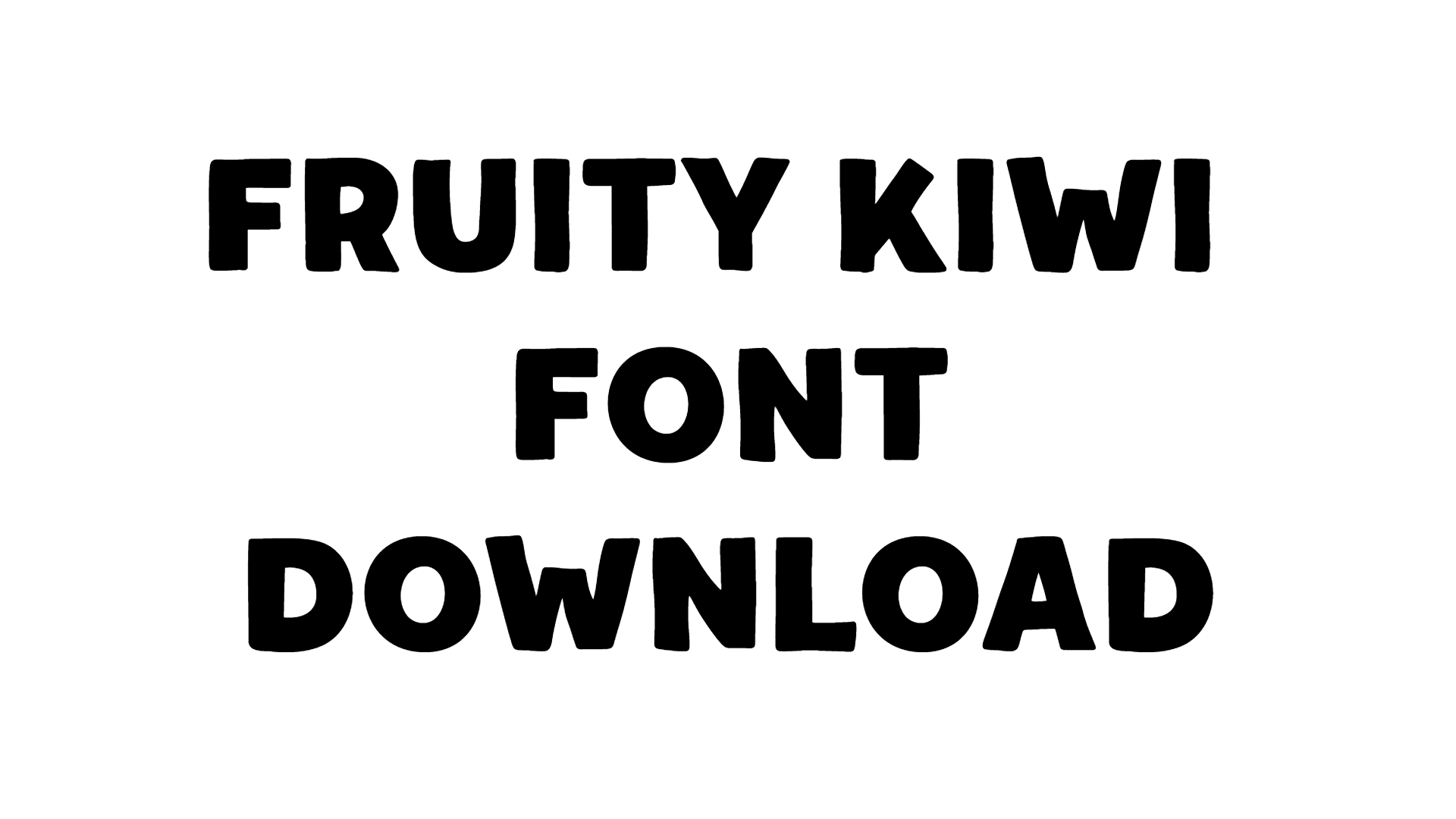
Fruity Kiwi Font
Fruity Kiwi
Fruity Kiwi is a cartoon font created by MJType (Muhamad Junaid). Its bouncy, rounded letters feel playful, like lettering from a cartoon or a comic book. It's a free download, and you can try it with your own text in the preview above first.
Fruity Kiwi covers the full alphabet in upper and lowercase, plus all ten numbers, so you can set names, dates and prices without switching fonts. Common punctuation such as &, !, ? and @ is included as well. It also has the accented letters you need for Spanish, French, German, Portuguese and Italian.
Fruity Kiwi is a natural fit for kids' books, birthday invites and fun YouTube thumbnails. Cartoon fonts are great for short, fun lines. If you place it over a busy photo, add a thick outline or a drop shadow so it stays readable.
Yes. Fruity Kiwi includes the accented letters needed for Spanish, French, German, Portuguese and Italian, so it works for more than just English.